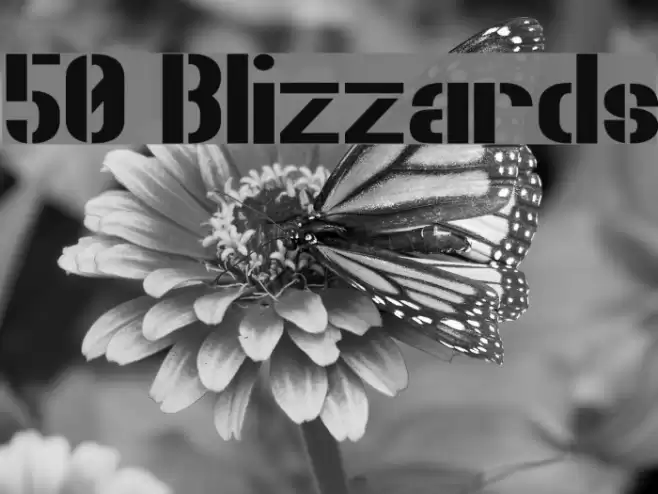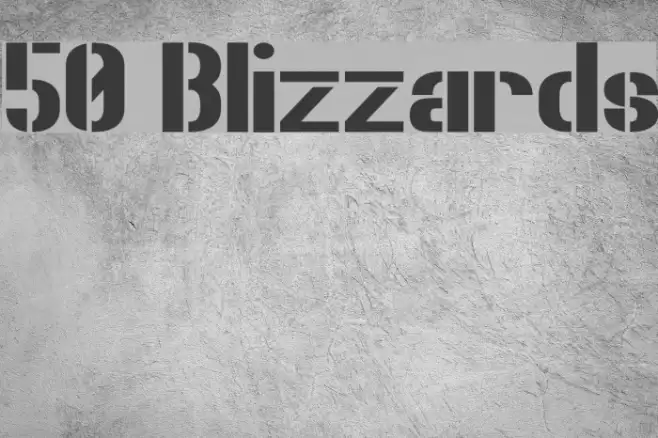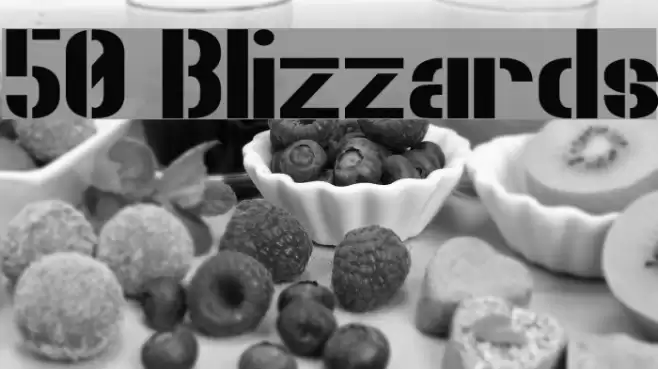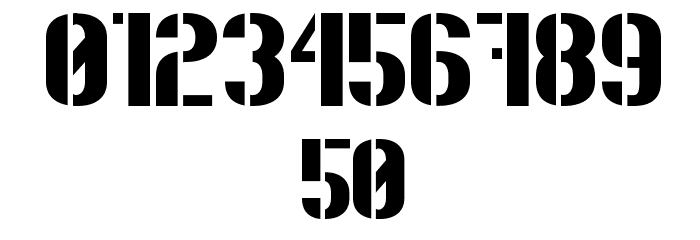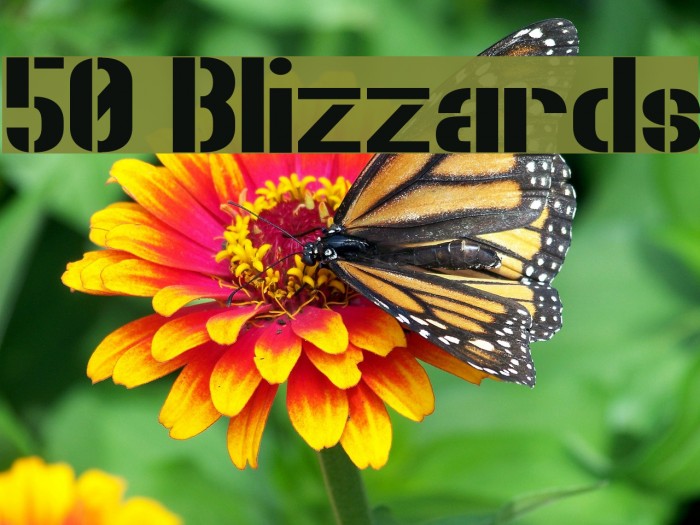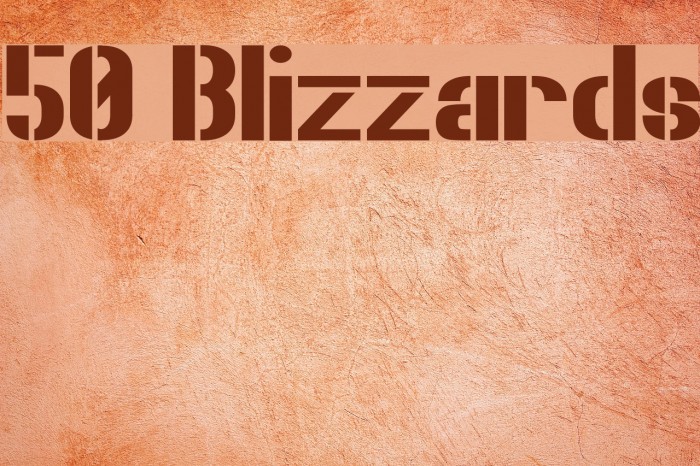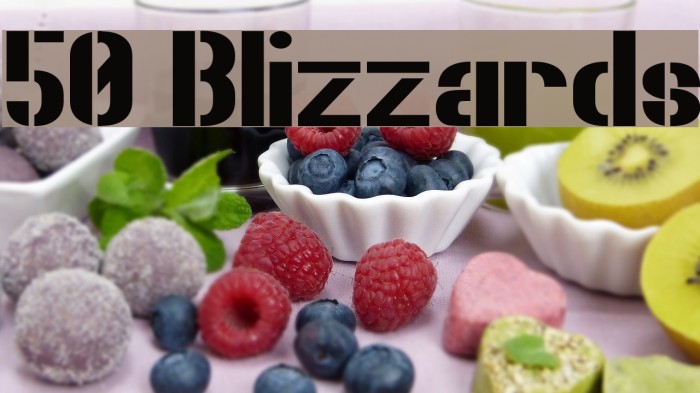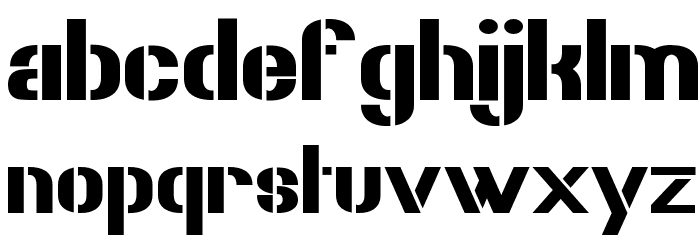
50 Blizzards Font
50 Blizzards Description
This font features a bold and striking design with a stencil-like appearance. The characters are constructed with thick, solid strokes and distinct cut-out sections, creating a dynamic and modern look. The uppercase letters are particularly impactful, with a strong geometric influence that enhances their visual presence. The lowercase letters maintain the same boldness, ensuring consistency throughout the typeface. Numbers and special characters follow the same design principles, making them equally bold and eye-catching. This font's unique style makes it suitable for projects that require a strong visual impact.
A bold, stencil-like font with geometric influences and strong visual impact from Uncategorized fonts.
- Proposed Projects: Ideal for posters, branding, headlines, and any design needing a bold statement.